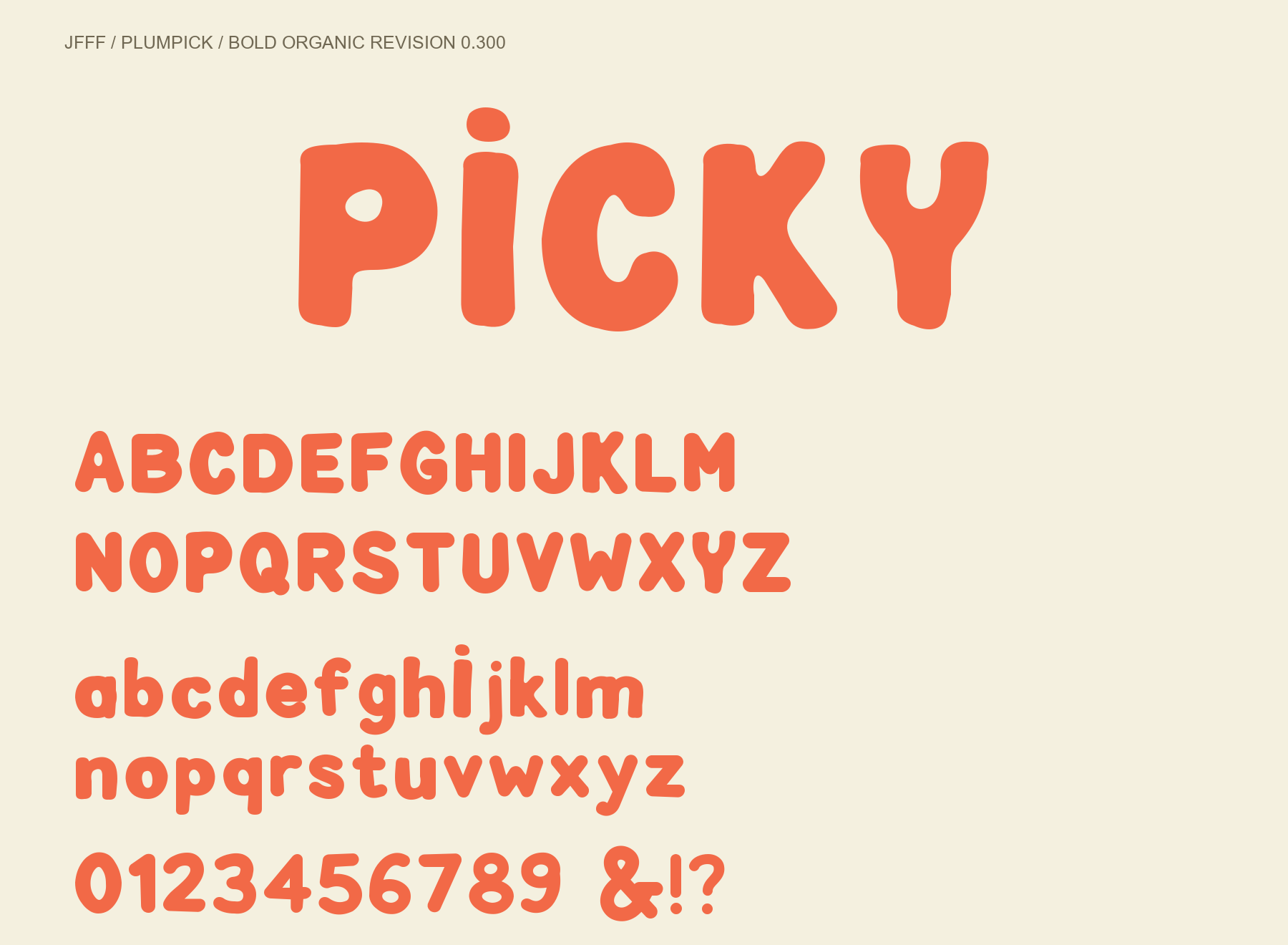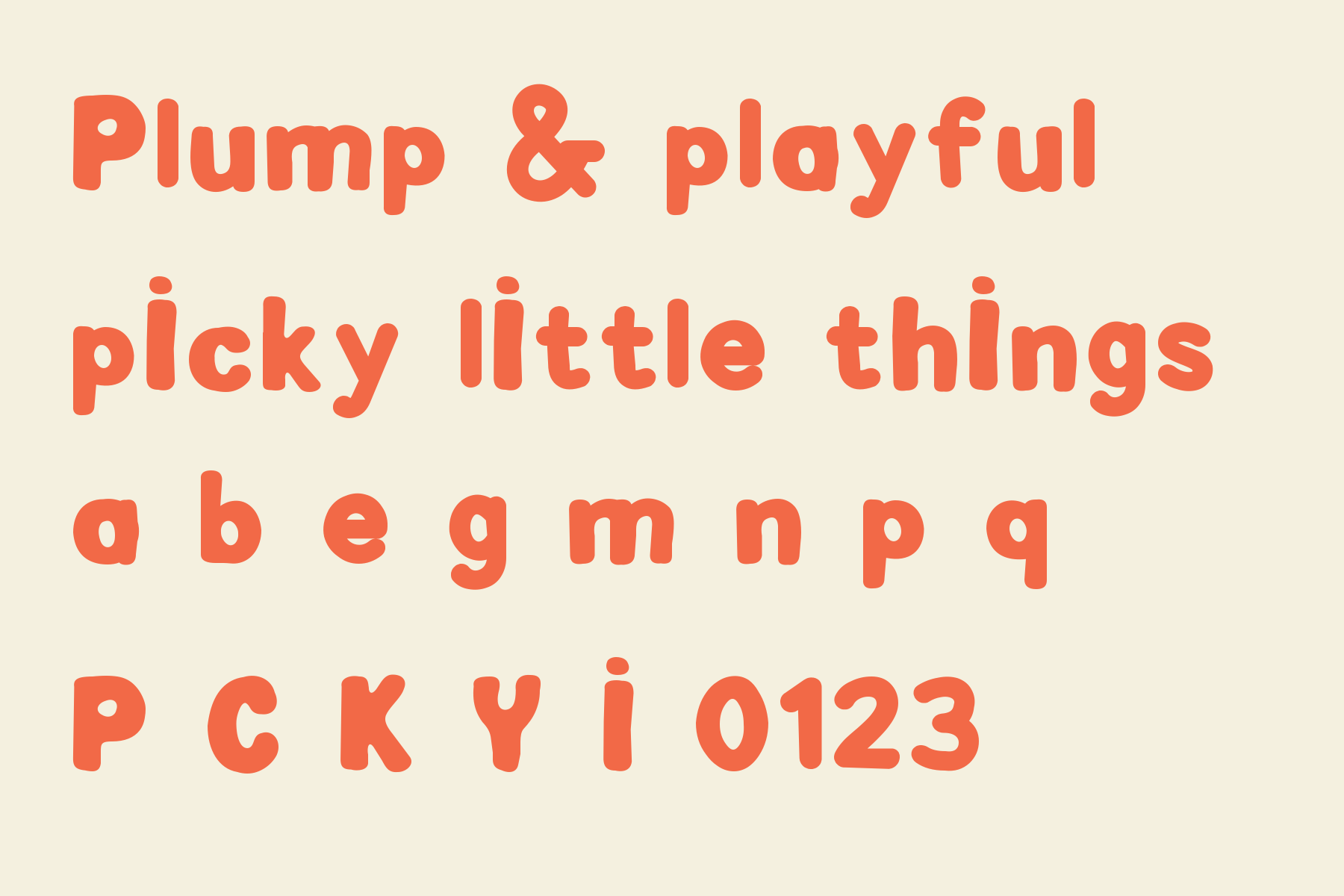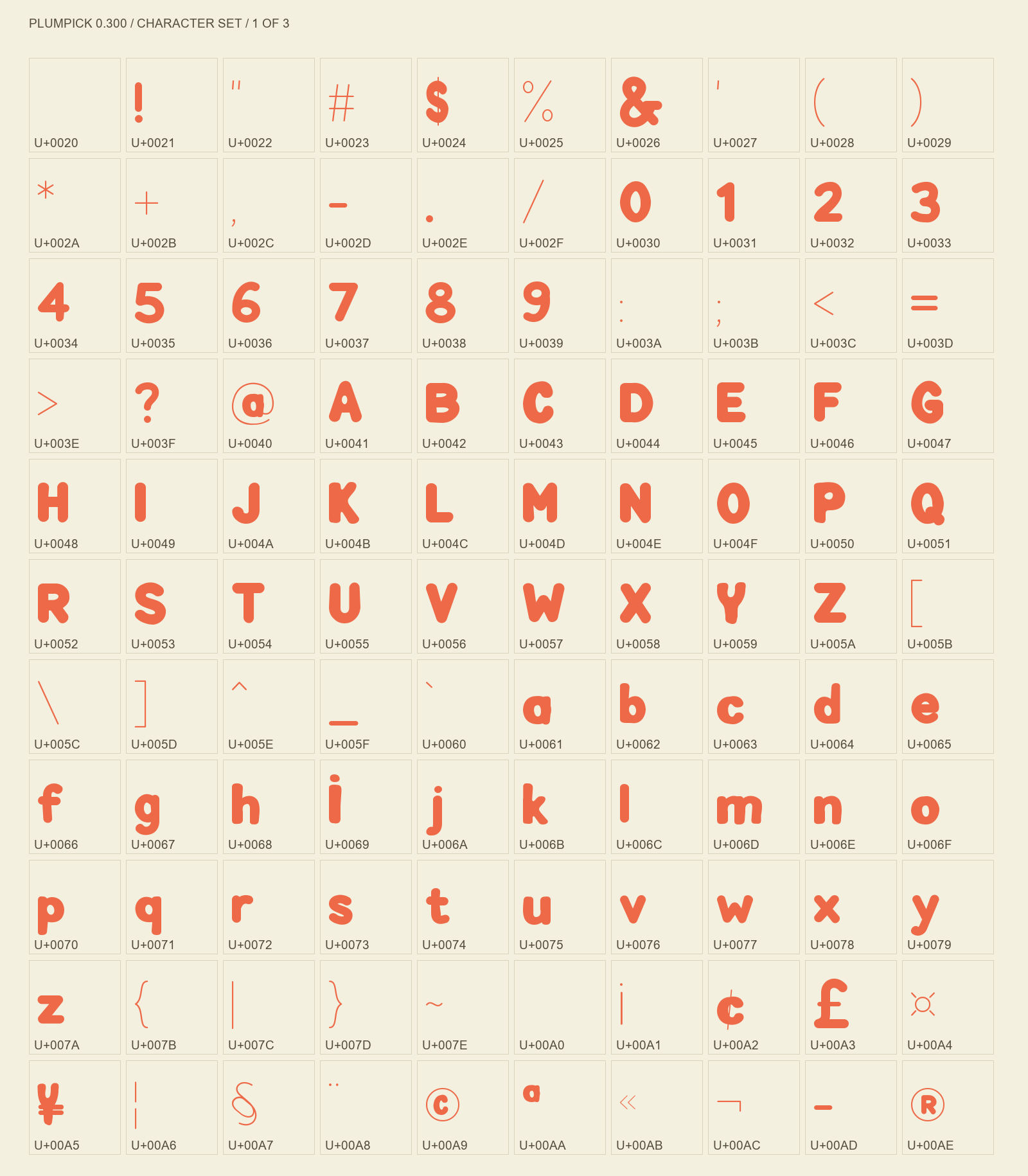
Plumpick uppercase, lowercase and figures
Plumpick is a Latin display face with plump bodies, soft flattened ends and asymmetric curves. Its P has a tiny counter, K and Y split gently, and the dot of i sits high. 330 characters including spaces: uppercase, lowercase, figures, symbols and Latin Extended. No Hangul. Made for large titles, posters and short phrases. TTF and WOFF2, free under SIL OFL 1.1. Version 0.300 design preview: character sets were verified, but individual glyph design, full kerning and OS installation checks are not complete. No paper texture or print grain.